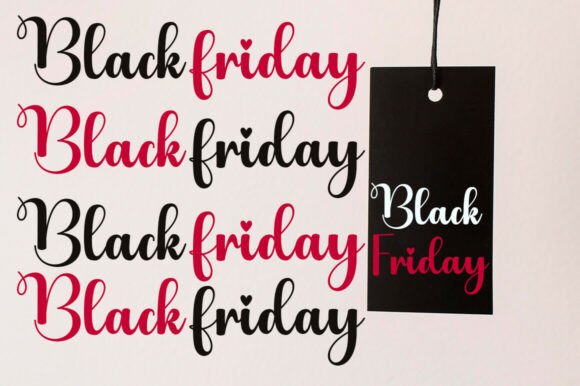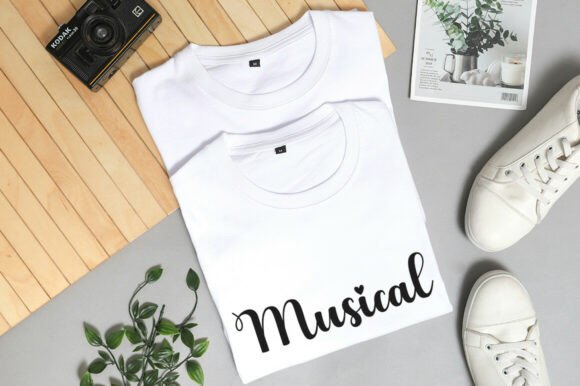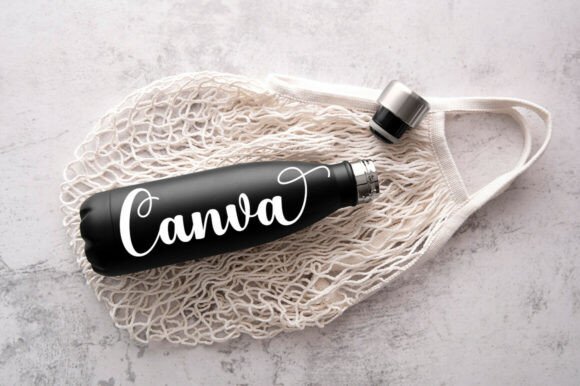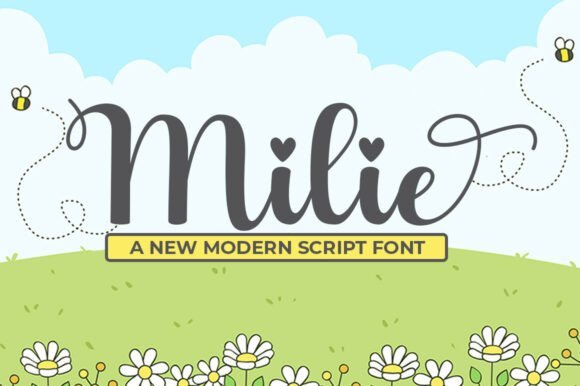
Introduction to Milie Font
Milie is a truly modern script font that marries effortless elegance with a sweet, handwritten charm, making it perfect for designs that need a touch of personalized sophistication.
This beautifully flowing Milie font features a moderate weight and striking contrast, ensuring excellent legibility while maintaining a delicate, authentic signature style Its key unique feature is the charming heart glyphs replacing the dots over the ‘i’s, and its dramatic, extended swashes that give the Milie script font a dynamic, expressive character.